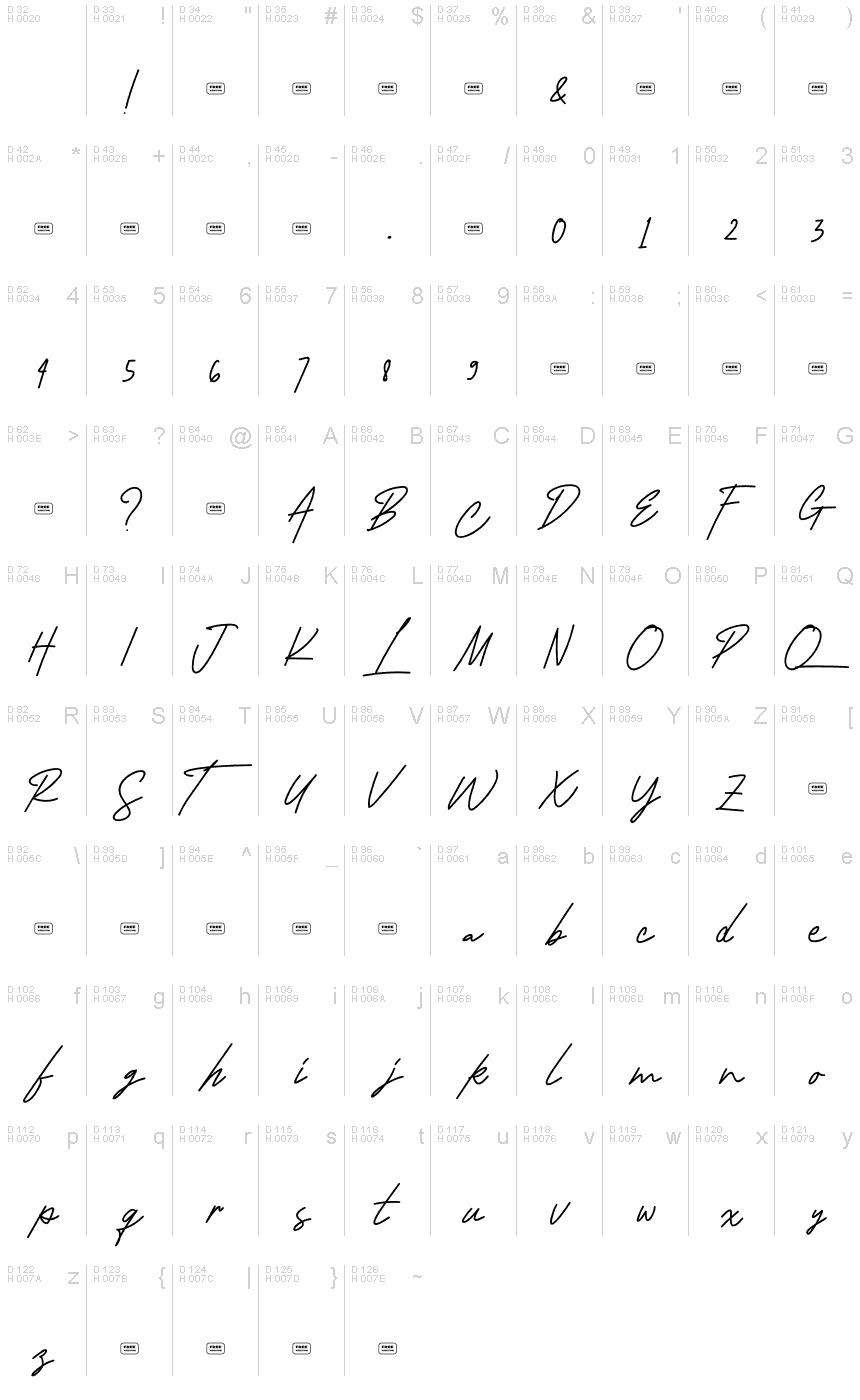
Sweet Beans Free Trial
Sweat Beans is a casual monoline script font designed by Typefactory. It maintains its classy calligraphic influences while feeling contemporary and fresh. This versatility will appeal to a wide range of crafty ideas, from letterheads and titles to stationery.